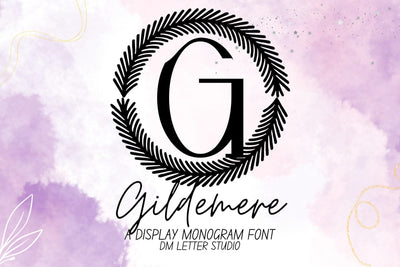
Gildemere Monogram Font
Meet Gildemere, the Monogram Font
Gildemere Monogram Font turns simple initials into polished, boutique-ready emblems with a hint of classic luxury. Strokes feel smooth and confident, while generous counters keep tiny tags readable. Use it for wedding suites, boutique logos, keepsake gifts, foil seals, and premium packaging. In addition, Gildemere pairs beautifully with refined serifs and quiet humanist sans fonts, so your layouts stay elegant without extra work.
Where this monogram font shines
Set single, double, or triple initials for logos, seals, menus, and place cards. Then frame them with laurel rings, oval borders, or fine rules to echo the poised geometry. Since the proportions favor symmetry and clarity, centered compositions come together in minutes. As a result, your thumbnails pop on marketplaces and your listings feel consistent from invitations to signage. Gildemere also scales smoothly from jewelry cards to entry displays, which makes it ideal for event décor and retail packaging.
Design tips for Gildemere Monogram
Keep initials large and let white space breathe. Pair the headline monogram with a soft serif for body text or a clean sans for labels and dates. Add micro shadows, a fine inner stroke, or a delicate frame for depth. Because the forms are airy and balanced, textured papers and metallic accents raise perceived value. However, keep copy short so the monogram remains the hero—especially on favors, tags, and wax seals.
Select stylistic alternates for key letters
Curves tuned for foil, letterpress, engraving, laser cutting, and clean vinyl paths
Why creators choose this monogram font
You want elegance that reads at a glance and sells across many product types. Gildemere Monogram Font delivers steady clarity, fast layout, and a cohesive brand voice from invites to packaging and gifts.